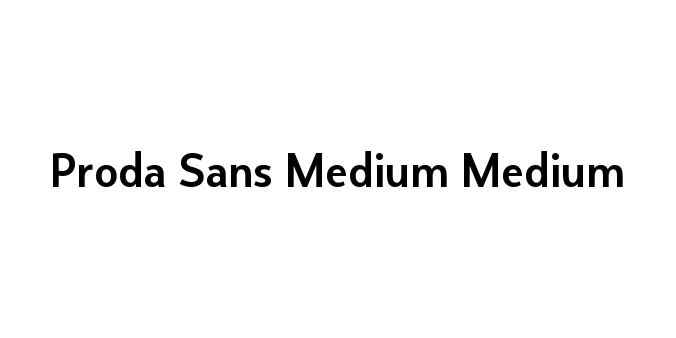
Proda Sans Medium Medium
Designed by Namrata Goyal
Proda Sans Medium is a refined humanist sans-serif typeface created by Namrata Goyal. It is inspired by the mid-20th-century geometric style, blending classical proportions with a contemporary finish that ensures high legibility across various screen resolutions. The Medium weight is particularly versatile, striking a harmonious balance between the lightness of a book weight and the authority of a bold face.
The design features open apertures and a generous x-height, which make it exceptionally readable in both large headings and small body text. This modern geometric approach allows Proda Sans to feel professional yet approachable. It is an excellent choice for designers looking for a typeface that conveys efficiency and sophistication without the coldness often associated with strictly geometric fonts.
Proda Sans Medium Medium Best Uses
Ideal for creating strong, recognizable corporate identities and logos.
Perfect for clean, readable website interfaces and navigation menus.
The high legibility makes it great for mobile user interfaces and application text.
Works beautifully for magazine headlines and professional report layouts.